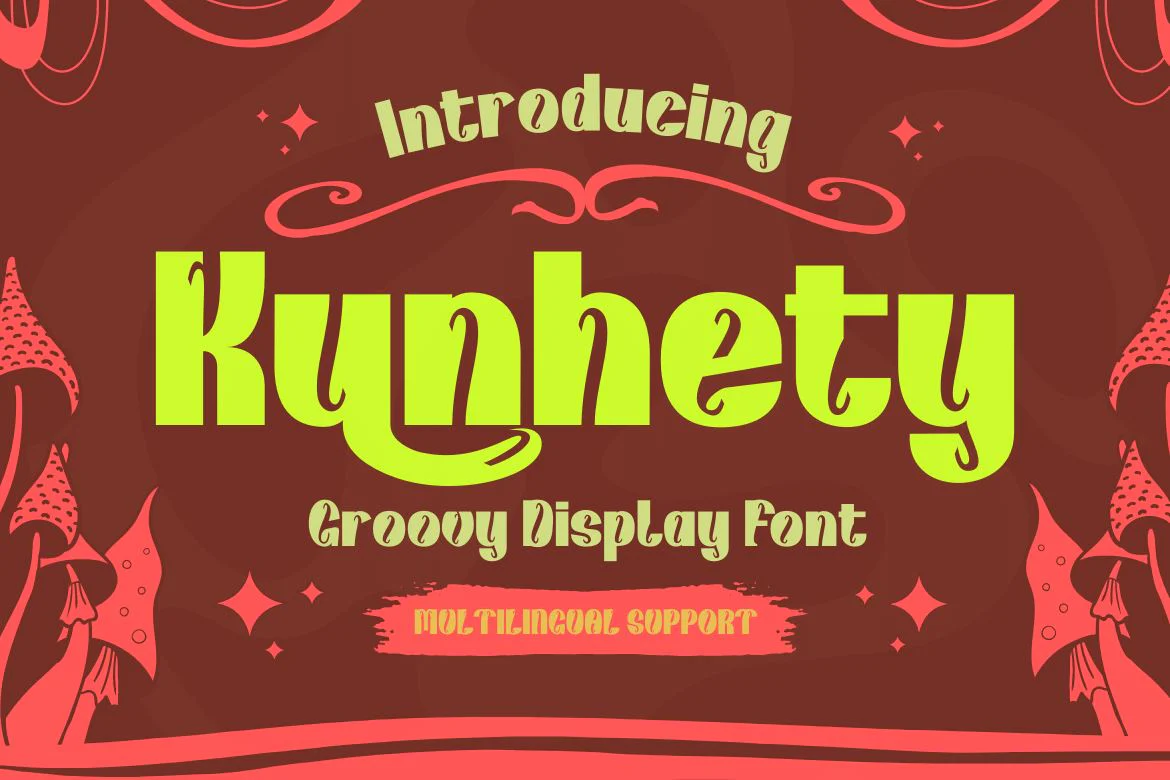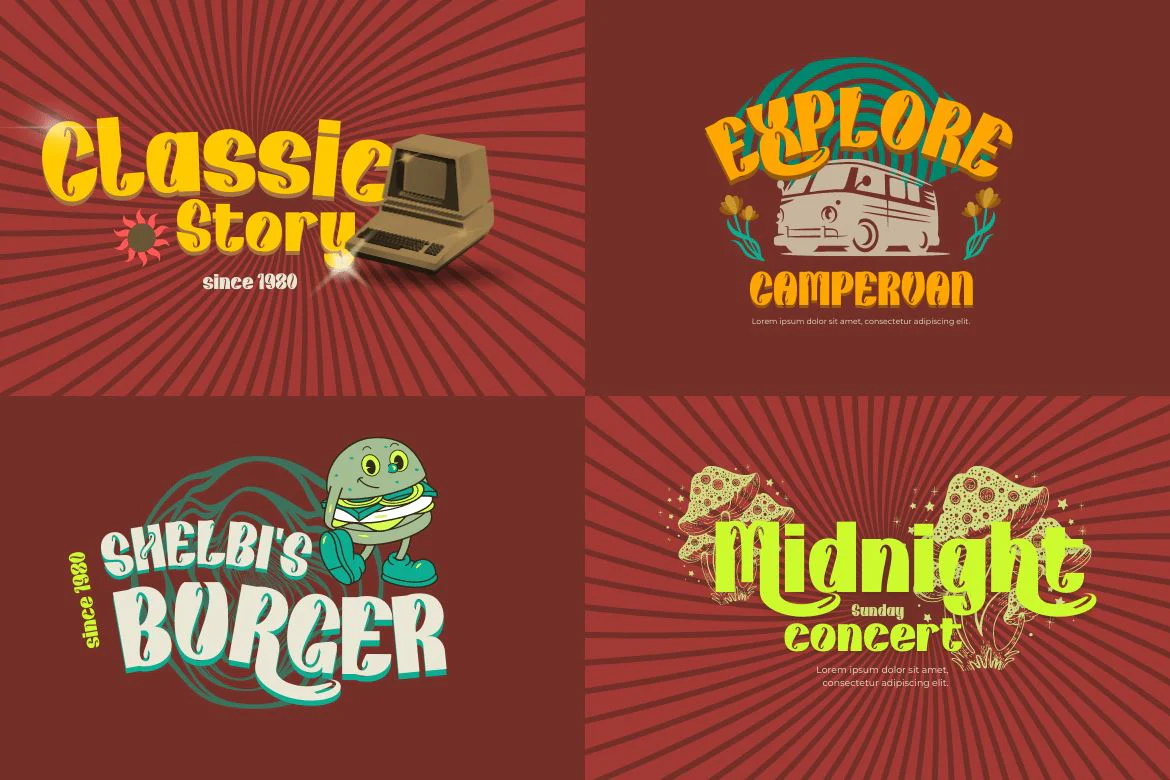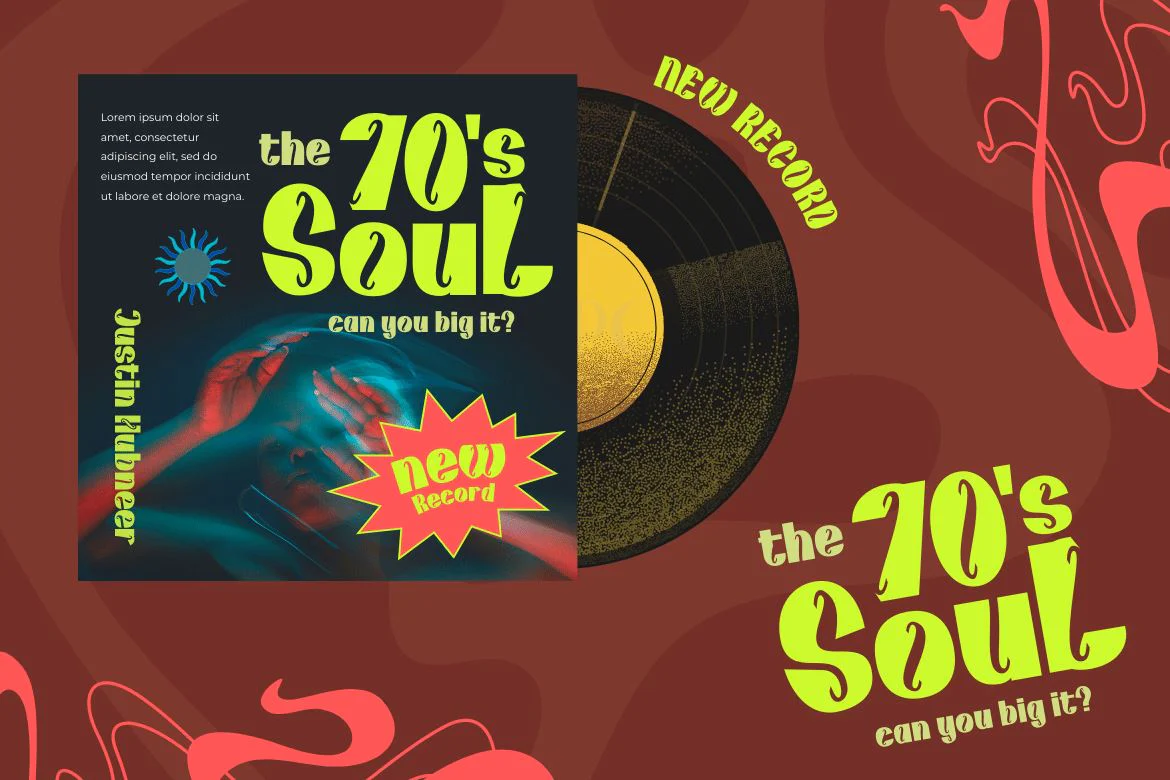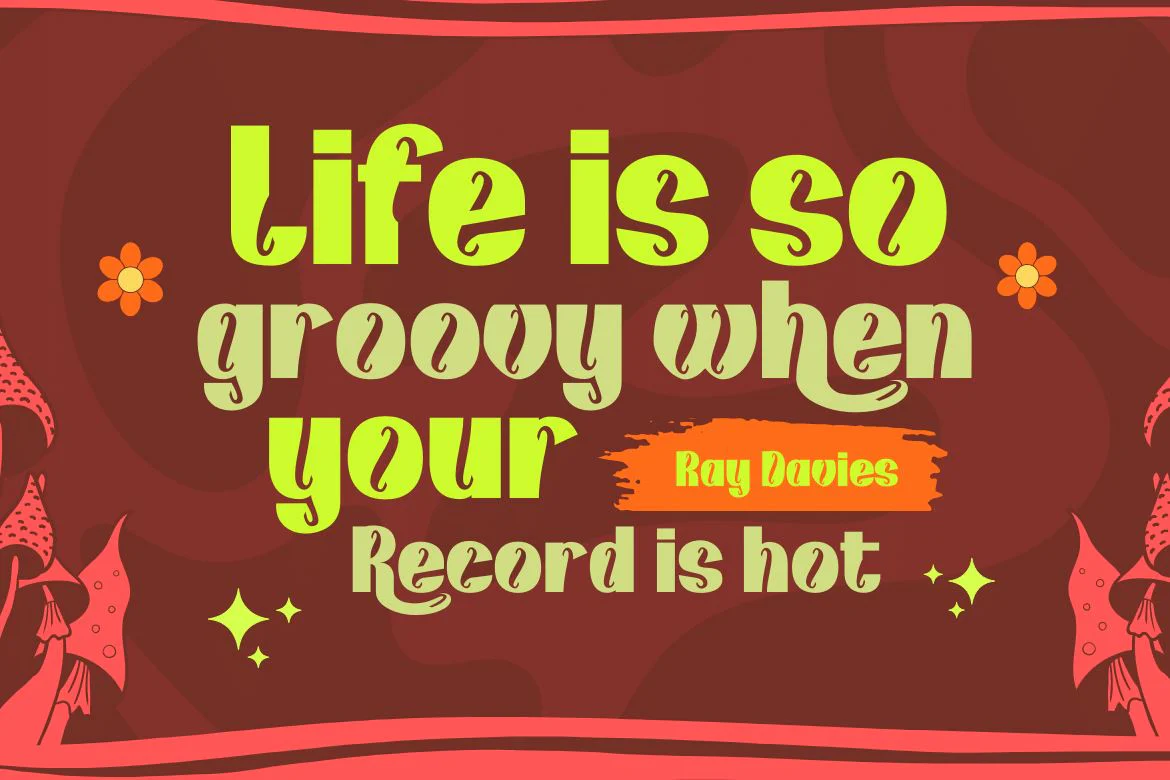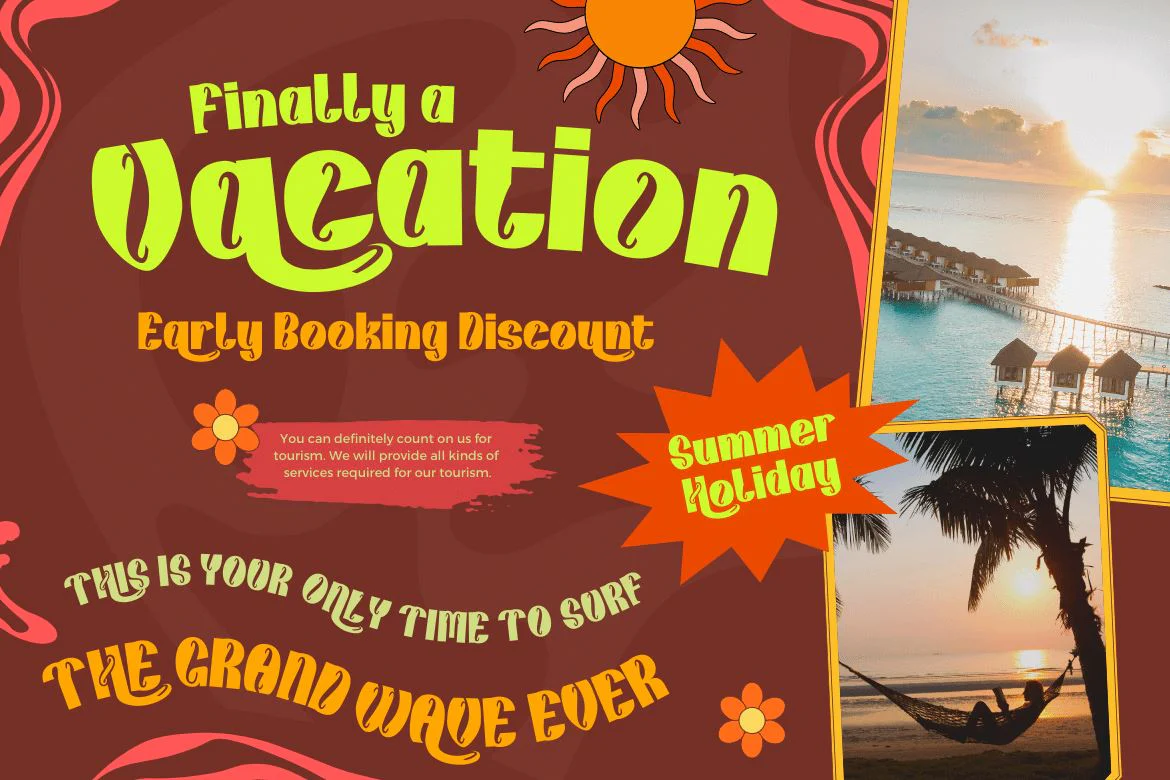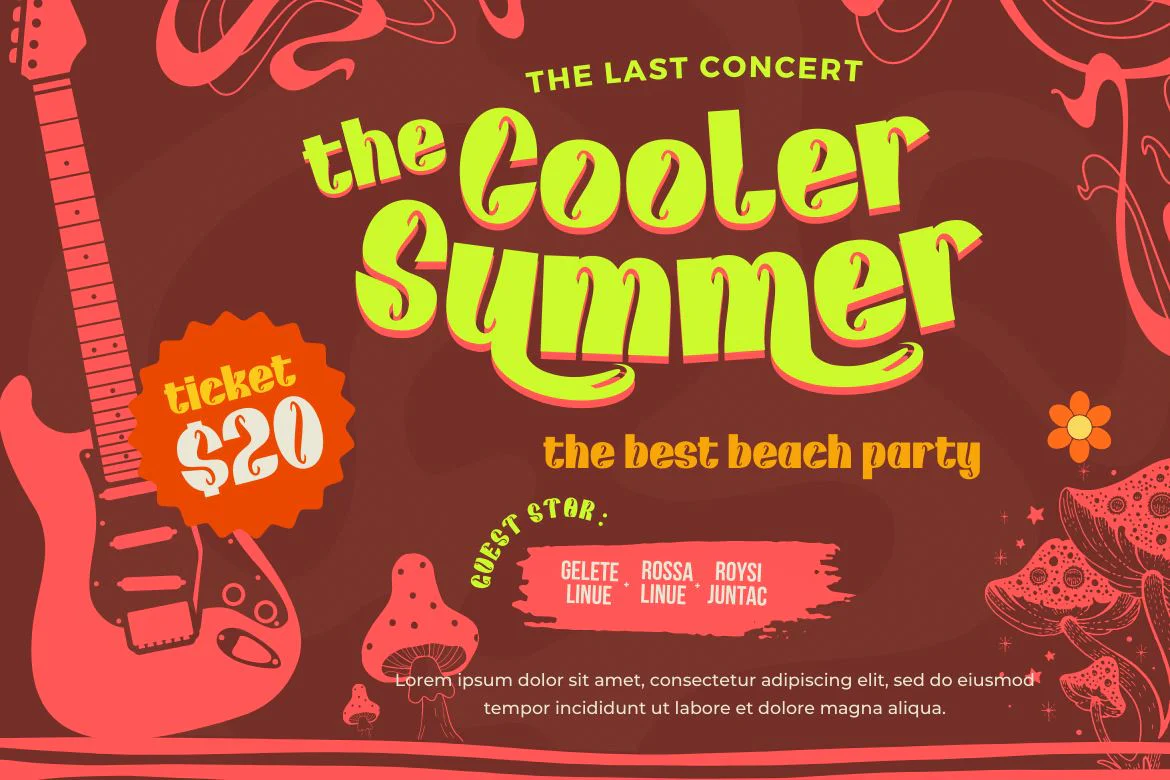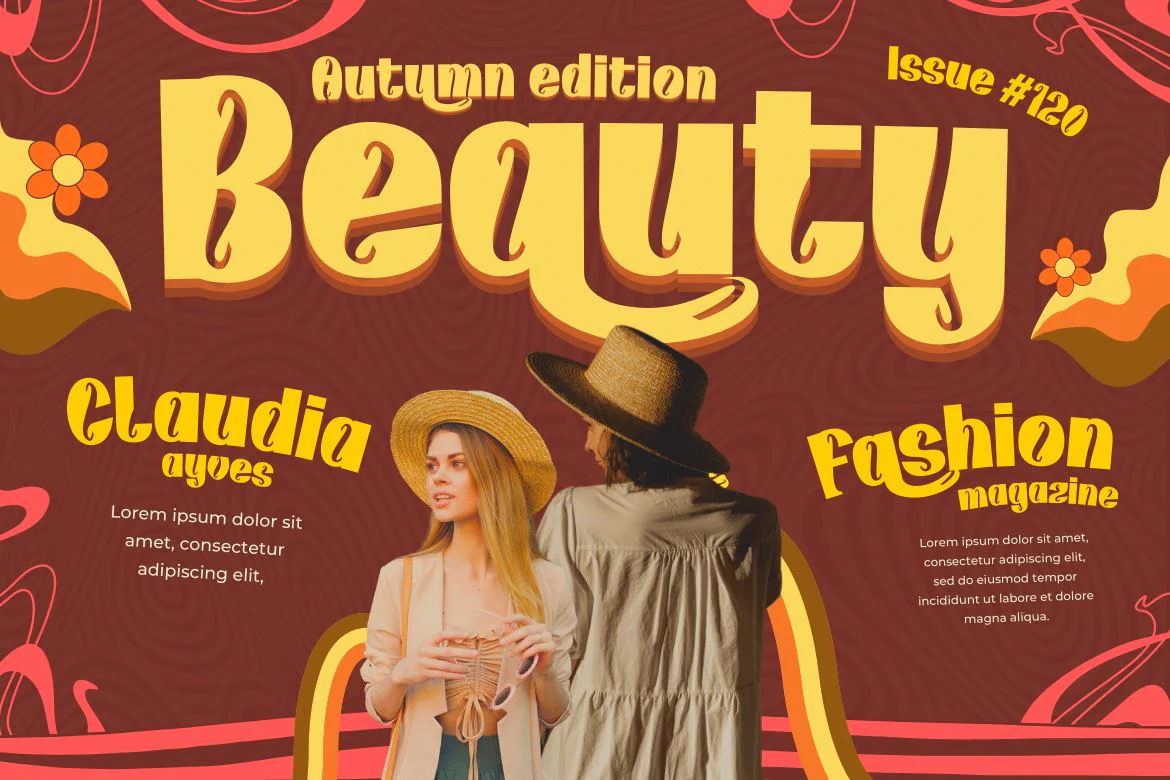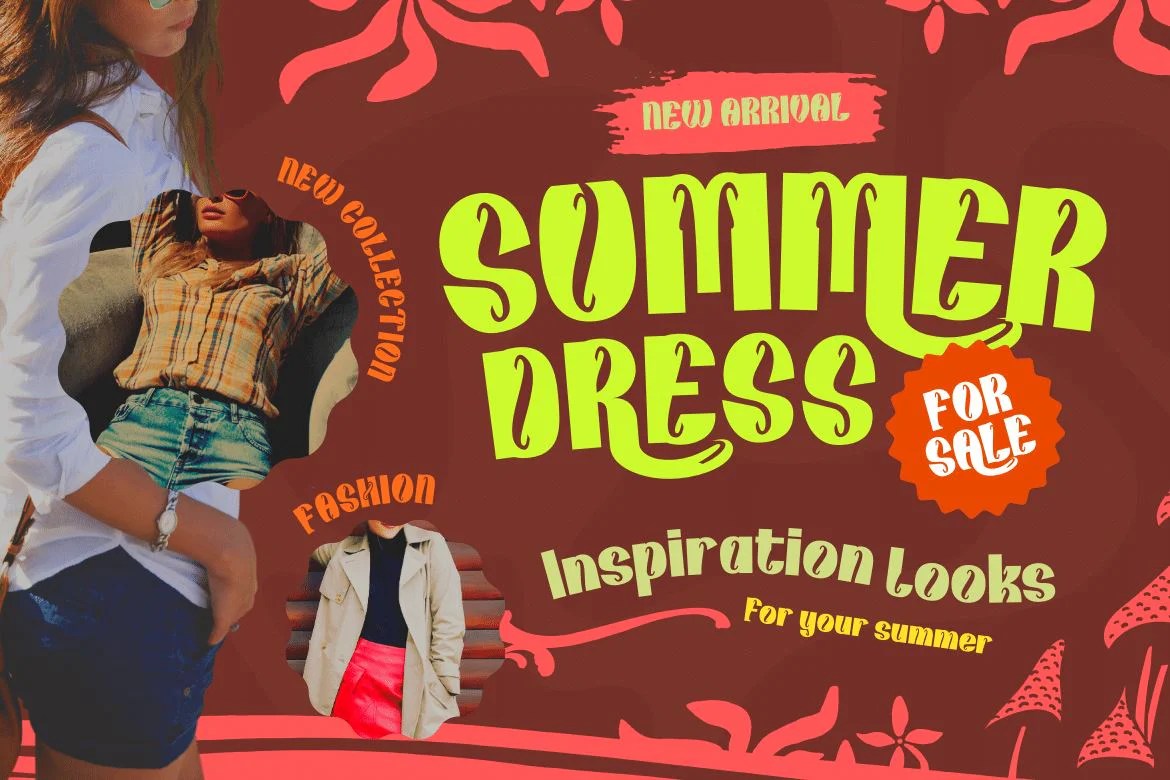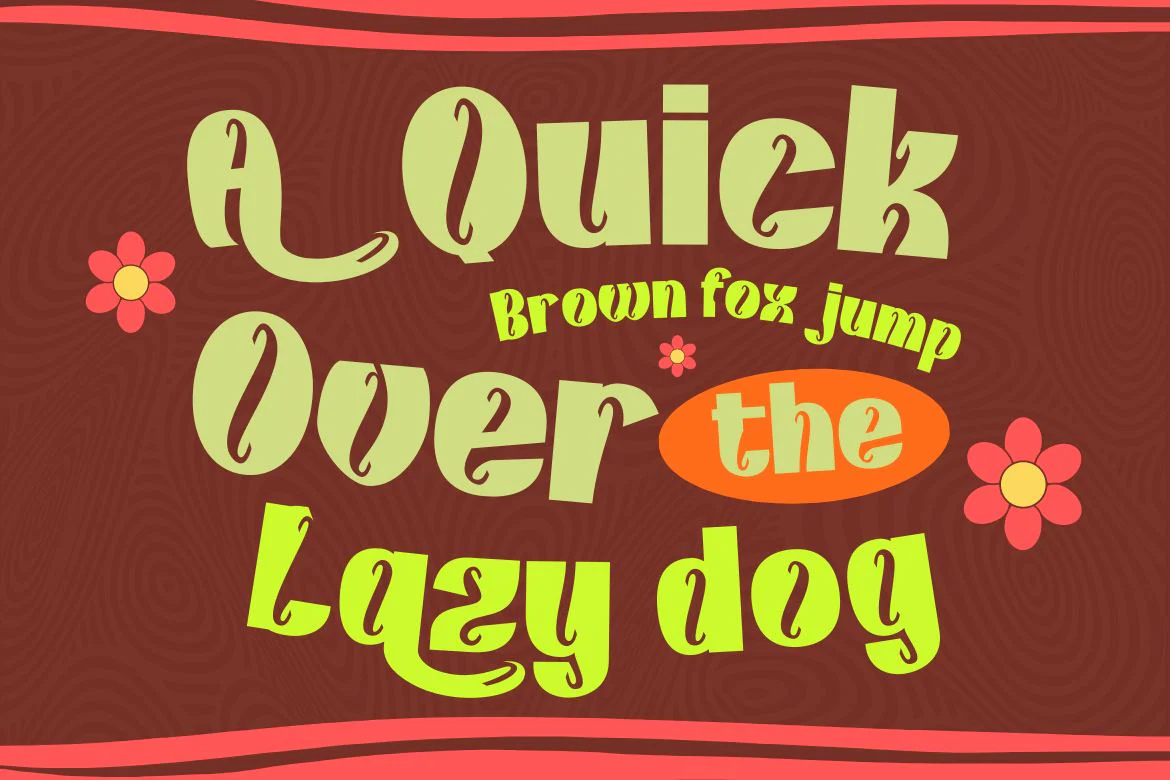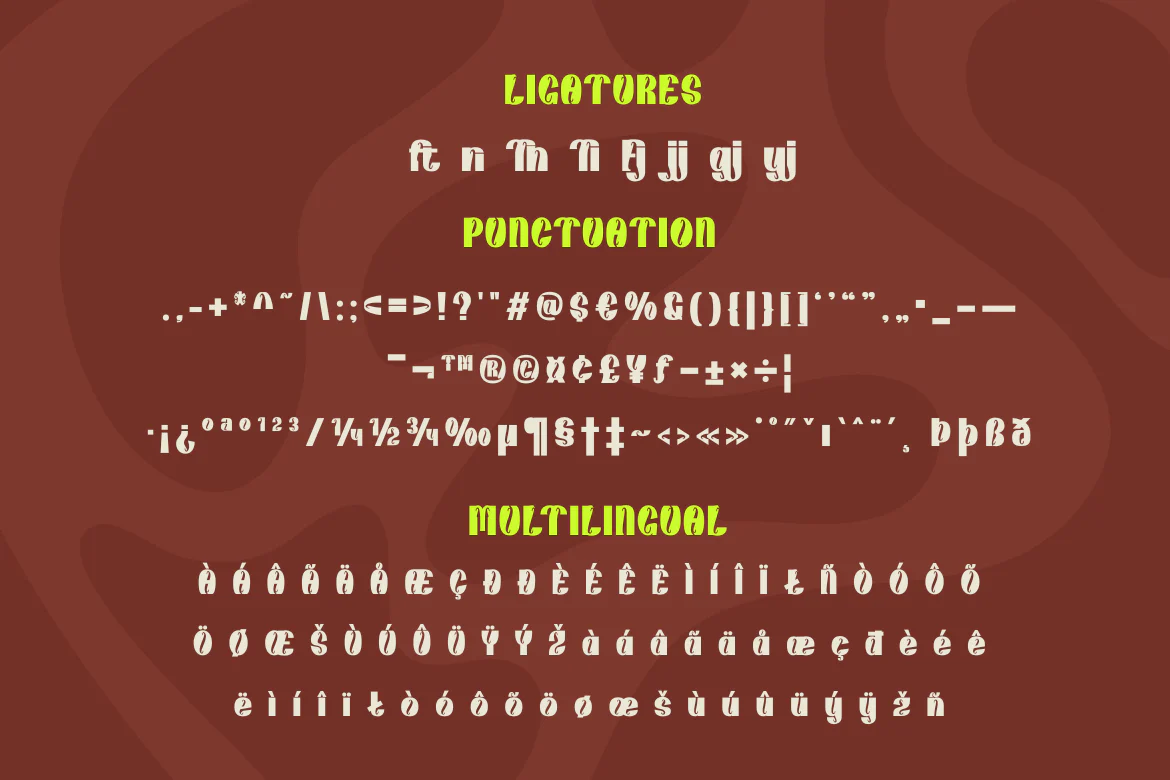
Kunhety | Groovy Retro Font
Introducing Kunhety, a groovy retro font display perfect for bringing a vintage touch to your designs. This font features bold and quirky letters that will make your projects stand out and evoke a feeling of nostalgia. Whether you’re working on a poster, or an album cover, or want to add some retro vibes to your latest project, Kunhety is the perfect font for you. With a range of alternative characters and multilingual support, this font is versatile and ready to add some groovy flavor to your work. Don’t miss out on the opportunity to elevate your designs with Kunhety.
Furthermore, Kunhety is user-friendly and easy to use. Making it compatible with a wide range of software and devices. And with its clear and distinct letterforms, it’s sure to grab the attention of your audience and leave a lasting impression. So, add a touch of retro cool to your next project with Kunhety today!
Introducing Kunhety, a groovy retro font display perfect for bringing a vintage touch to your designs. This font features bold and quirky letters that will make your projects stand out and evoke a feeling of nostalgia. Whether you’re working on a poster, or an album cover, or want to add some retro vibes to your latest project, Kunhety is the perfect font for you. With a range of alternative characters and multilingual support, this font is versatile and ready to add some groovy flavor to your work. Don’t miss out on the opportunity to elevate your designs with Kunhety.
Furthermore, Kunhety is user-friendly and easy to use. Making it compatible with a wide range of software and devices. And with its clear and distinct letterforms, it’s sure to grab the attention of your audience and leave a lasting impression. So, add a touch of retro cool to your next project with Kunhety today!